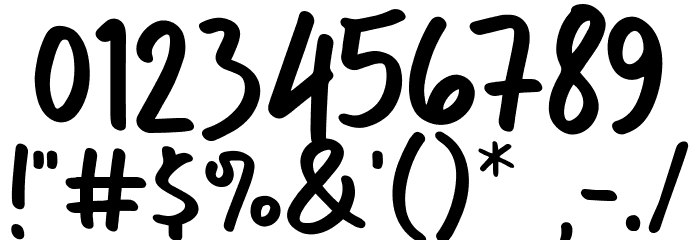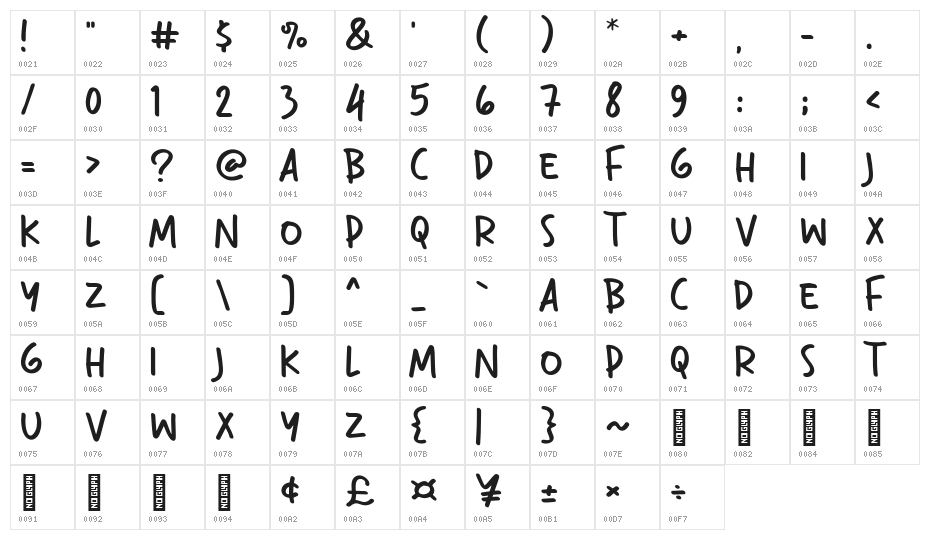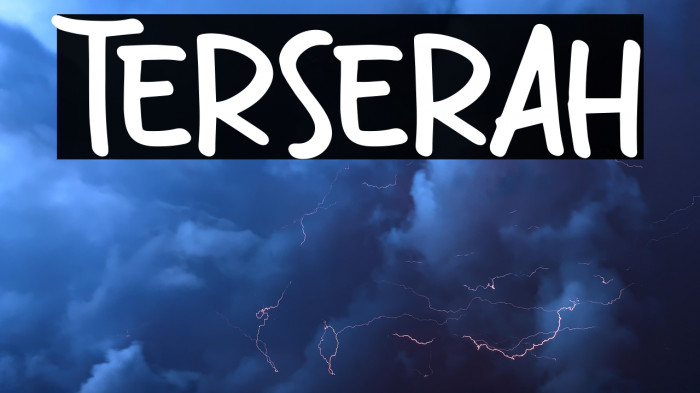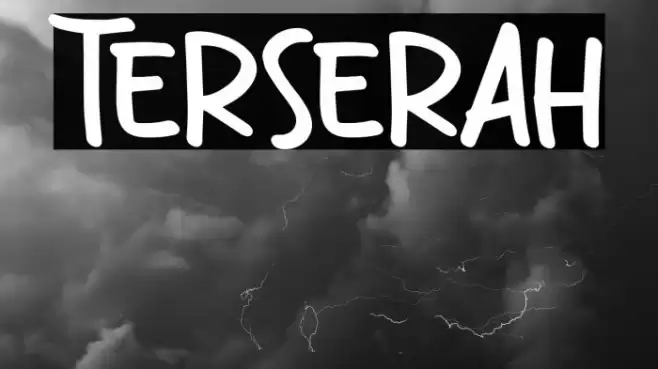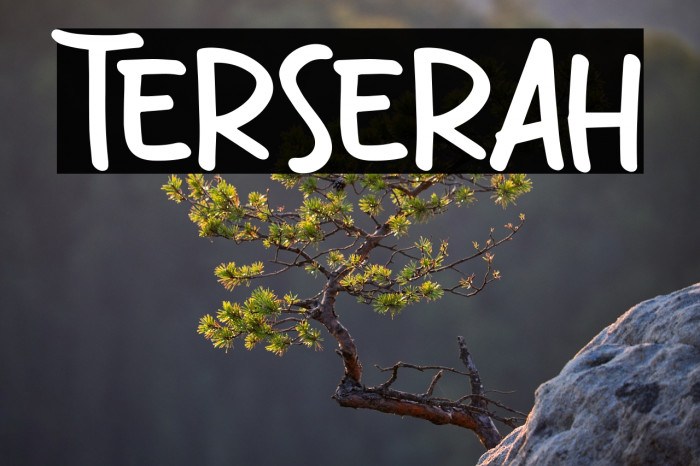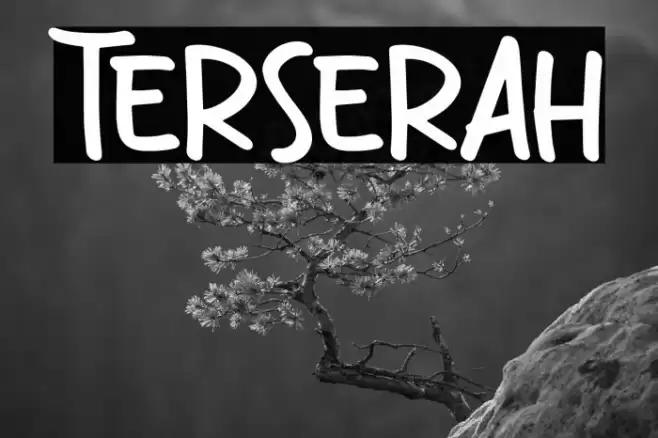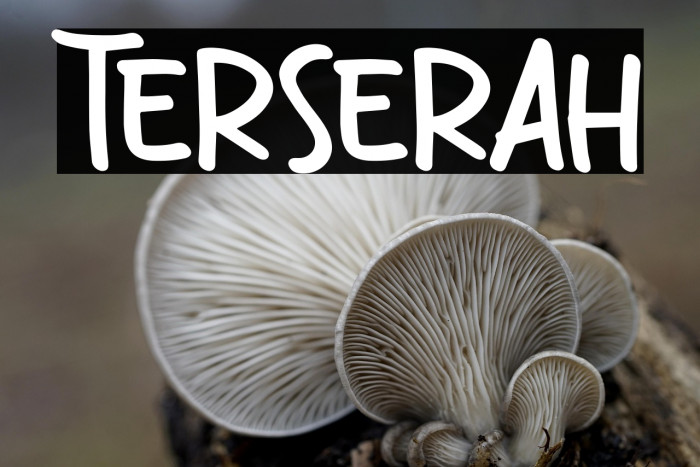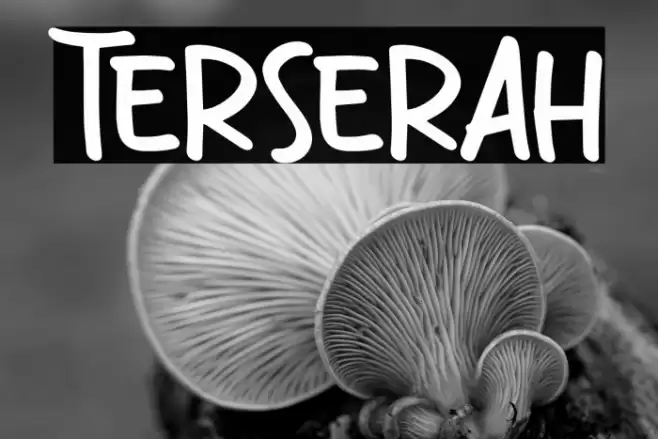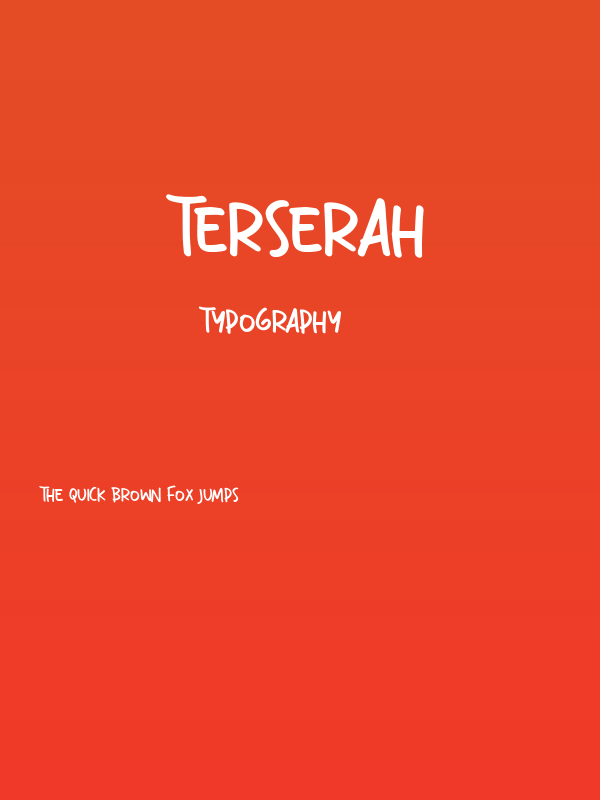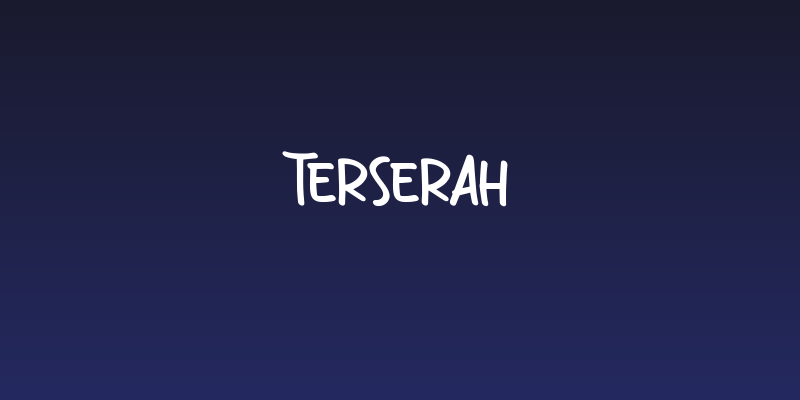
Terserah Font
Terserah Description
This font features a playful and informal handwritten style, characterized by its bold and slightly irregular strokes. The letters have a casual, friendly appearance, with a slight slant that adds to its dynamic feel. The uppercase and lowercase letters maintain a consistent style, with rounded edges and a uniform thickness that gives it a cohesive look. The numbers and special characters follow the same design principles, ensuring a harmonious overall appearance. This font is ideal for projects that require a personal touch or a sense of approachability.
Overall StyleCasual
Use CaseHeadlines, Logos, Informal Text
Proposed ProjectsIdeal for greeting cards, children's books, casual branding, and social media graphics.